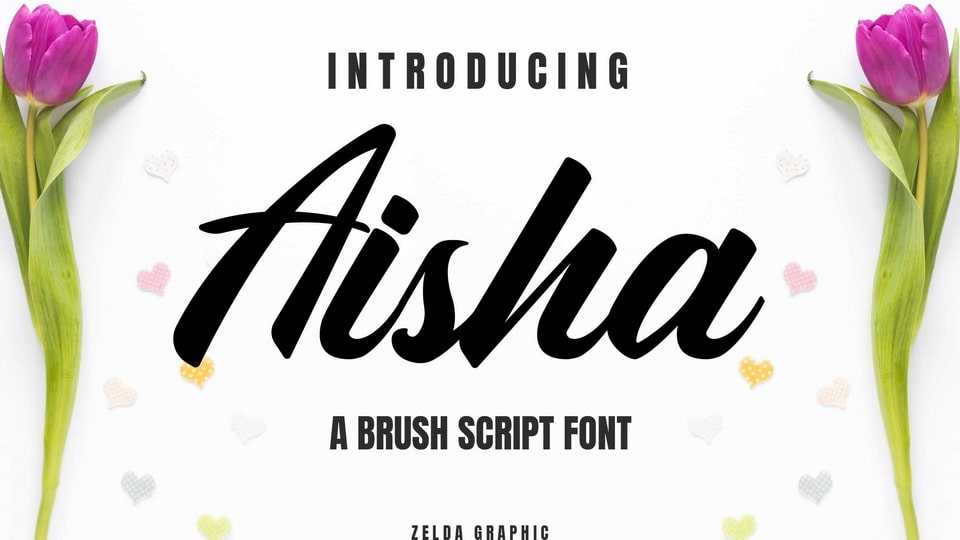
Download Aisha font, a cute and fun script typeface with a strikingly authentic feel. Aisha font is great for logo, poster, sticker, jersey, invitation card, brochure, etc.
Designer: Zelda Graphic